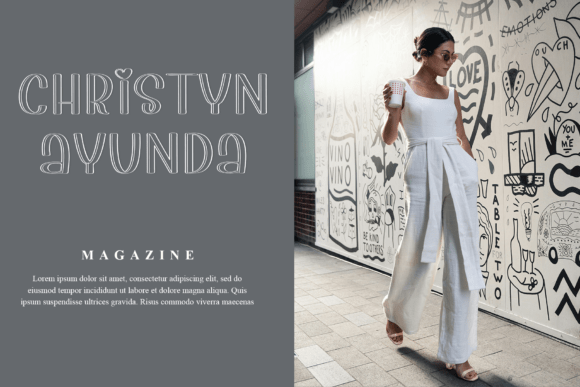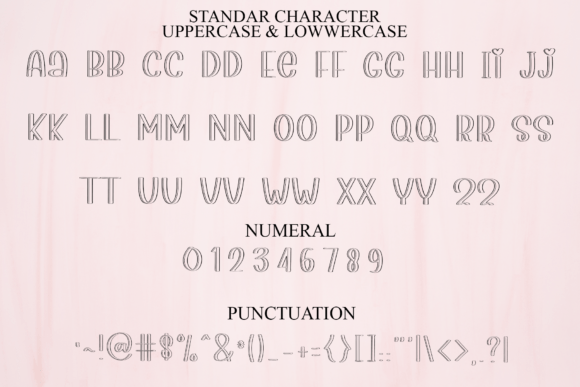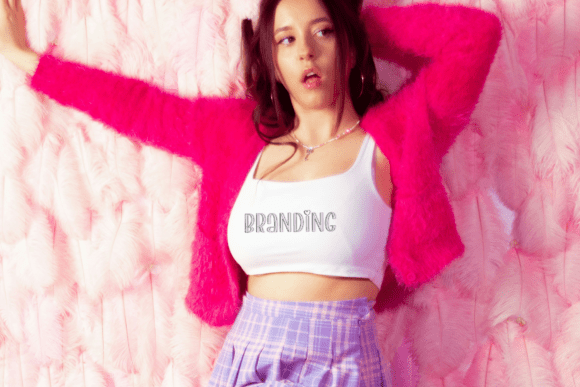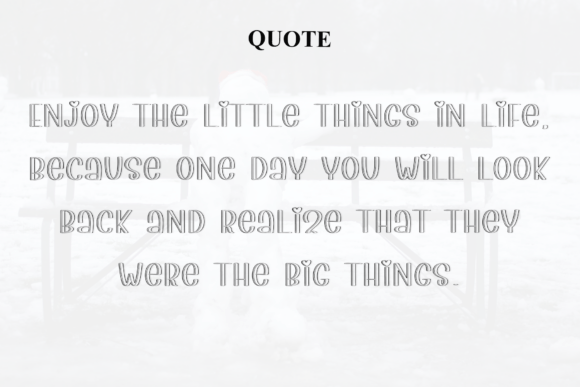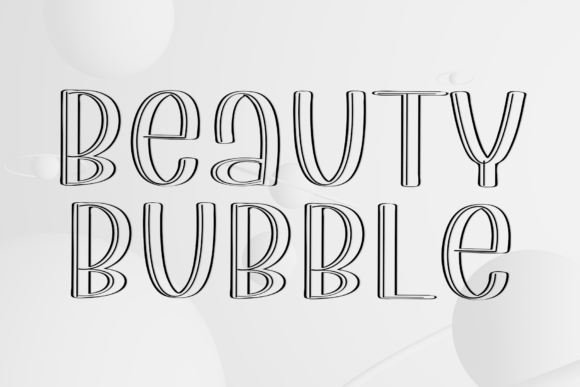
Discover the Charm of Digital Bubble Font: Elevate Your Designs with a Unique Touch
In the world of digital design, fonts play a crucial role in conveying messages, evoking emotions, and capturing attention. Among the myriad of font styles available, the Digital Bubble font stands out for its distinctive and eye-catching appearance. Designed with a soft, unique touch, this beautiful font is poised to add a special character to your design projects, crafts, and creative works.
The Distinctive Features of Digital Bubble Font
Digital Bubble font is characterized by its smooth, rounded strokes that give it a natural and approachable feel. Its unique design makes it instantly recognizable, allowing it to stand out in a crowded digital landscape. The font’s distinctive strokes not only add a touch of elegance but also make it highly versatile for various applications.
One of the key features of Digital Bubble font is its extensive character set. With a wide range of characters, designers and crafters can experiment with different combinations to create visually appealing and engaging designs. Whether you’re working on a logo, poster, or social media graphic, this font is sure to add a professional and polished touch.
Digital Bubble font is an ideal choice for designers and crafters looking to add a personal touch to their work. Its unique style makes it perfect for a wide range of projects, including:
- Social media graphics and ads
- Crafts and DIY projects
- Stationery and invitations
With Digital Bubble font, you can create stunning designs that capture the attention of your audience and leave a lasting impression.
The font’s natural style makes it suitable for a wide range of products, from digital media to print materials. Whether you’re designing a website, creating a brochure, or crafting a handmade card, Digital Bubble font is sure to enhance your work and make it more appealing to your audience.
Digital Bubble font offers numerous benefits for designers and crafters, including:
- Unique and eye-catching designs: With its distinctive strokes and soft touch, Digital Bubble font helps you create designs that stand out from the crowd.
- Versatility: The font’s natural style and extensive character set make it suitable for a wide range of projects and applications.
- Professional and polished look: Digital Bubble font adds a touch of elegance and sophistication to your designs, making them look professional and polished.
In conclusion, Digital Bubble font is a beautiful and eye-catching font that can elevate your designs and add a unique touch to your creative works. Its distinctive strokes, extensive character set, and versatility make it an ideal choice for designers and crafters looking to create stunning designs. With its compatibility with various applications and operating systems, you can easily integrate Digital Bubble font into your workflow and take your designs to the next level.